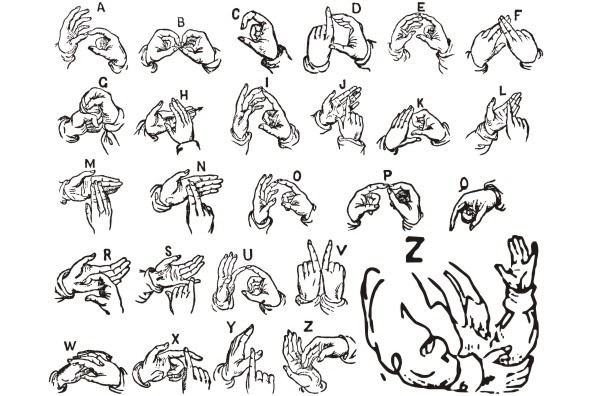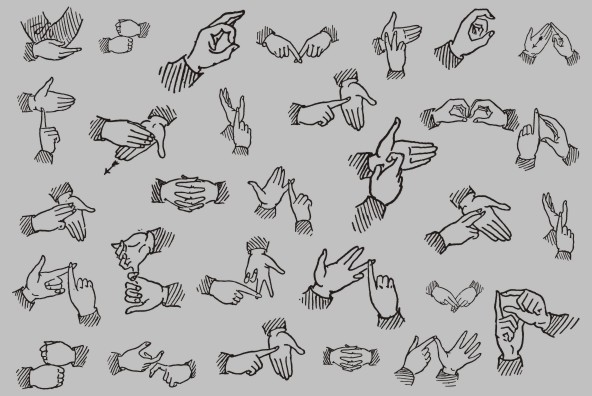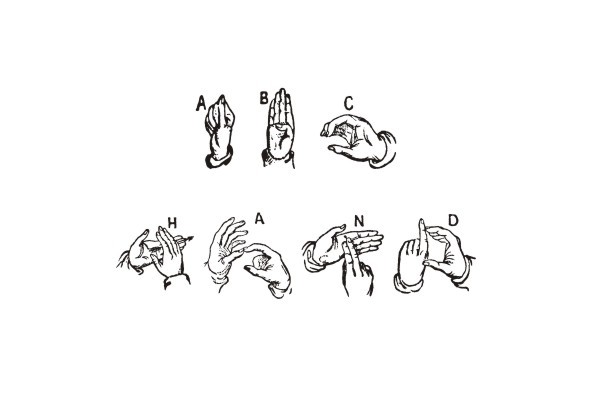
A source of hand signals. This alphabet is presented in two forms with one and two hands.
ABC Hand ABC Hand
A source of hand signals. This alphabet is presented in two forms with one and two hands.